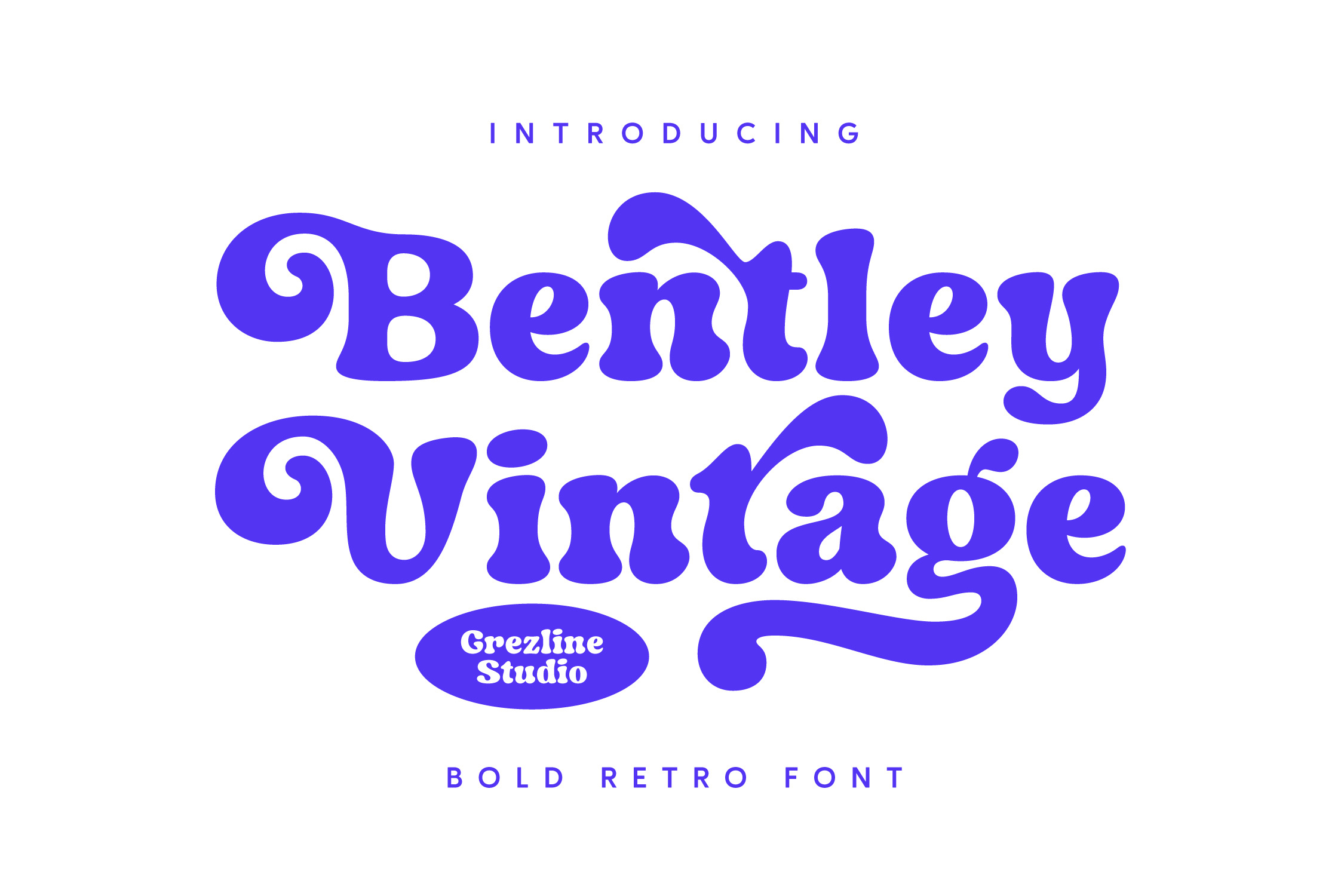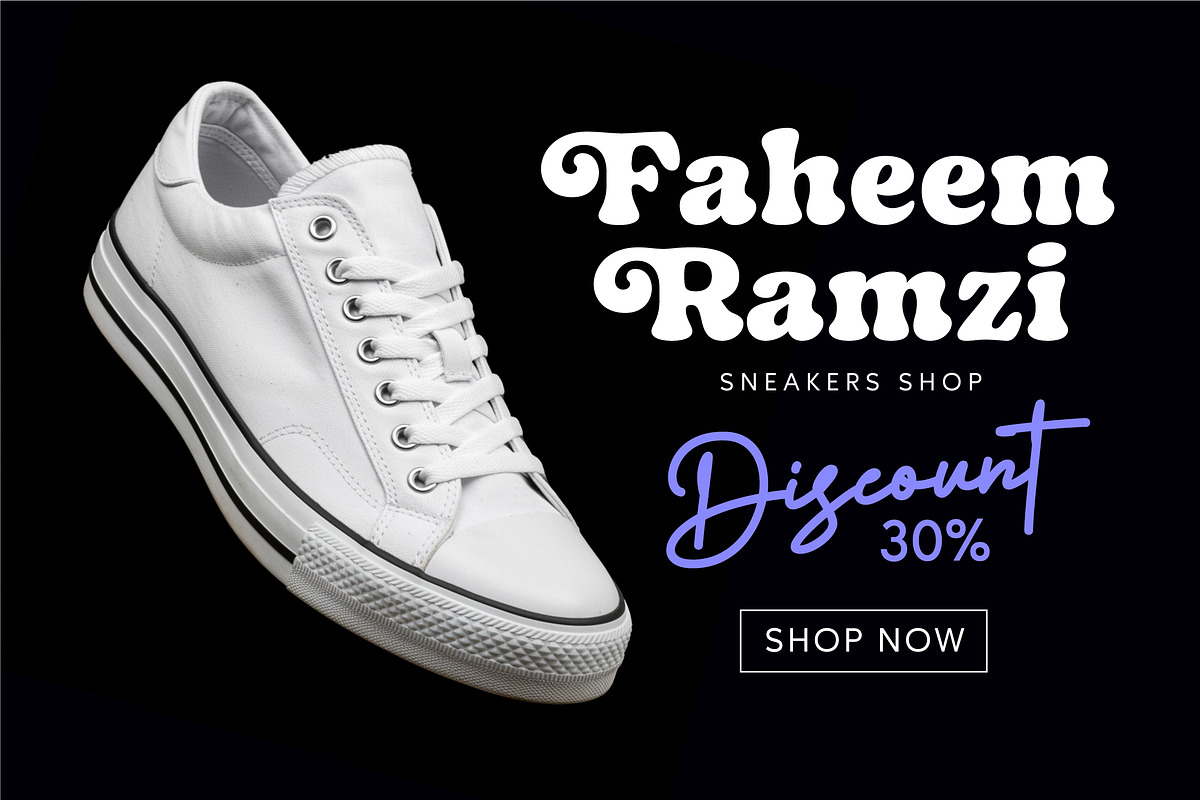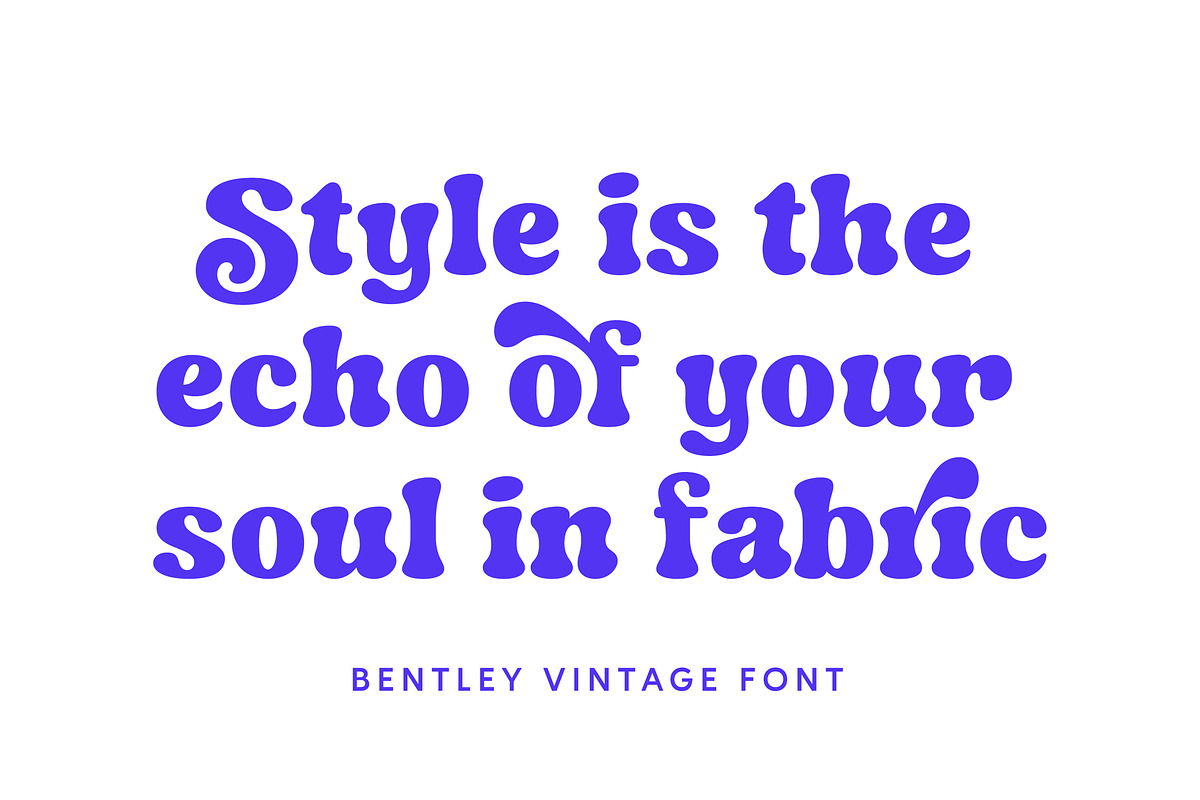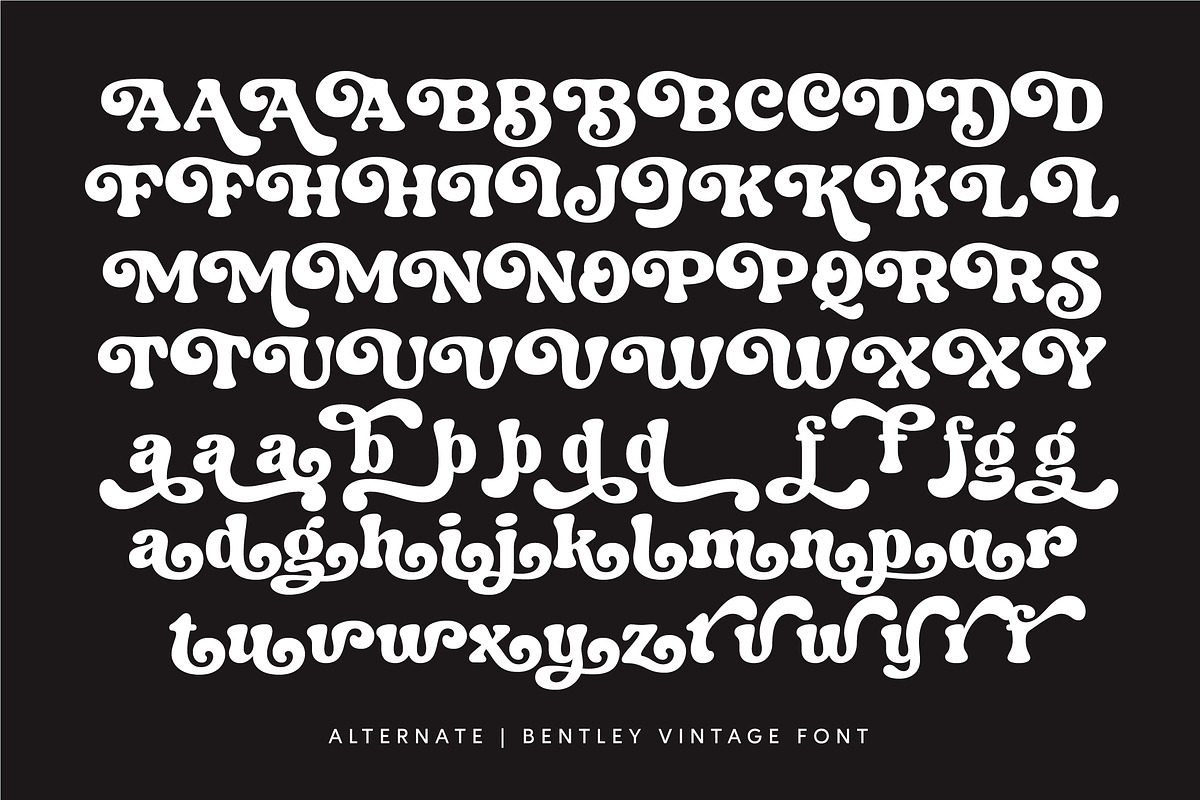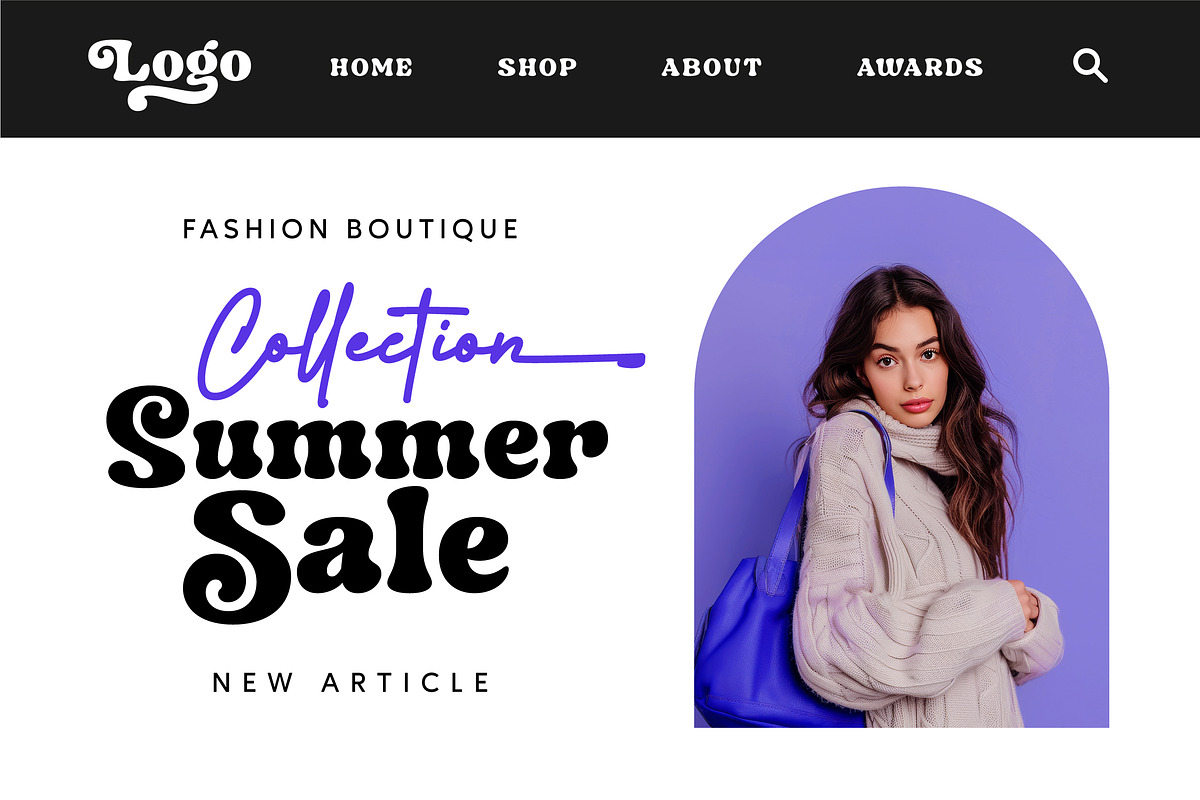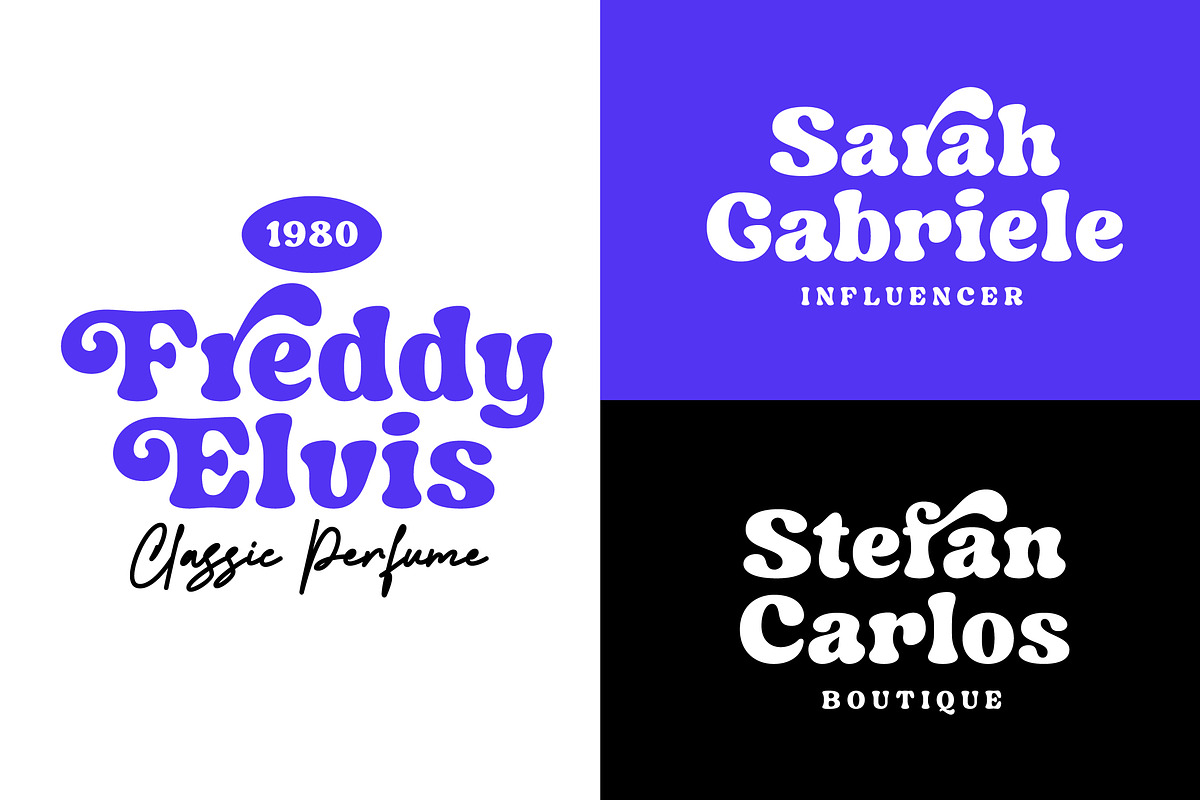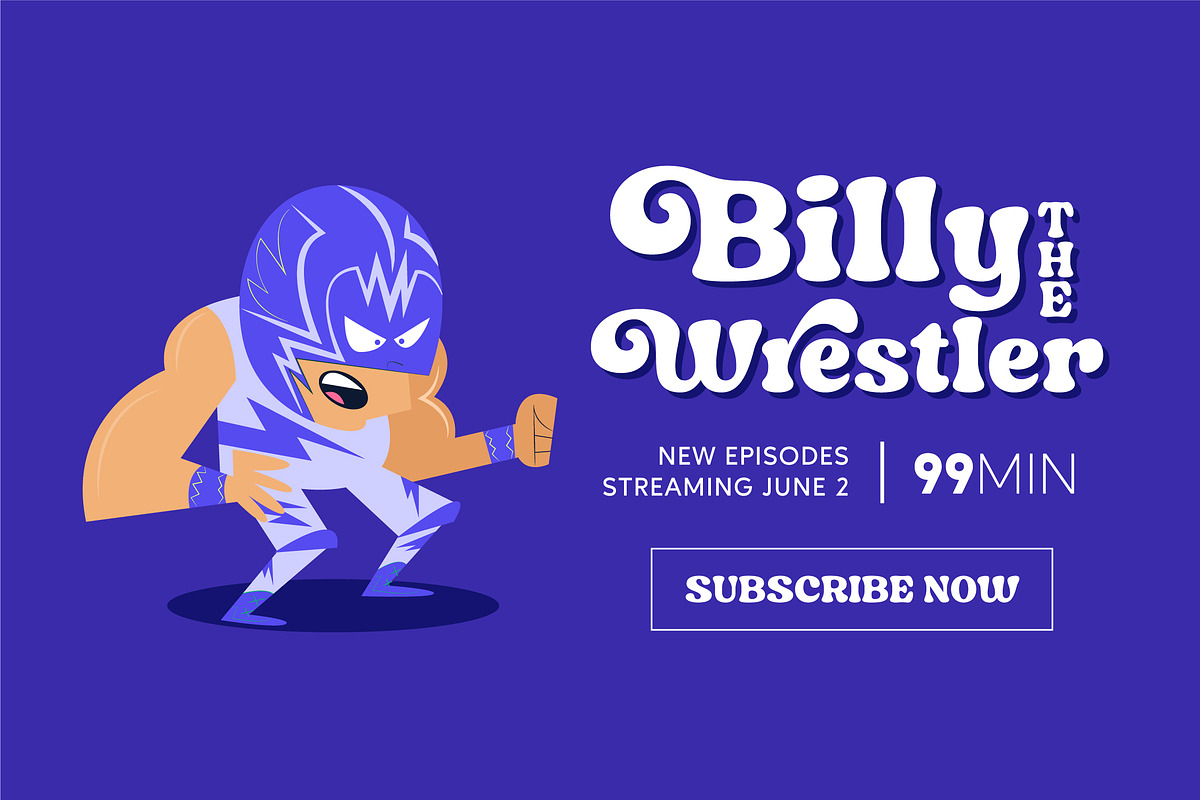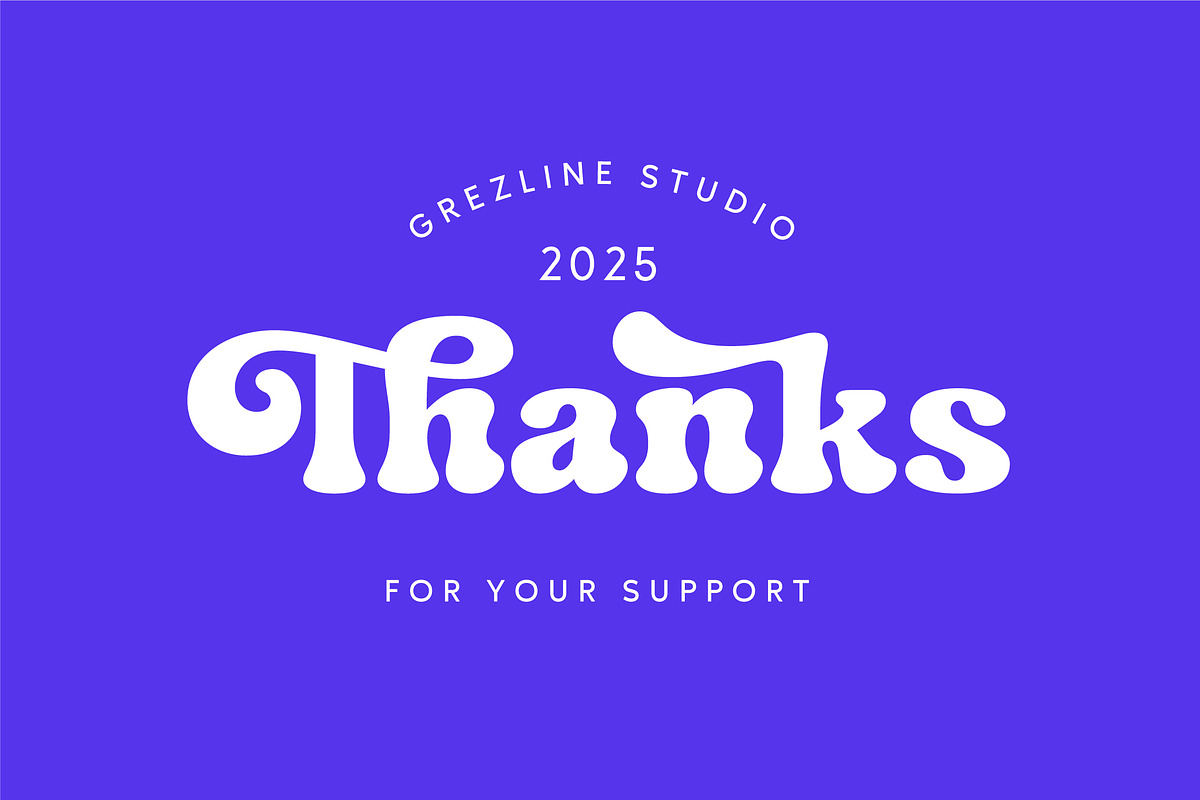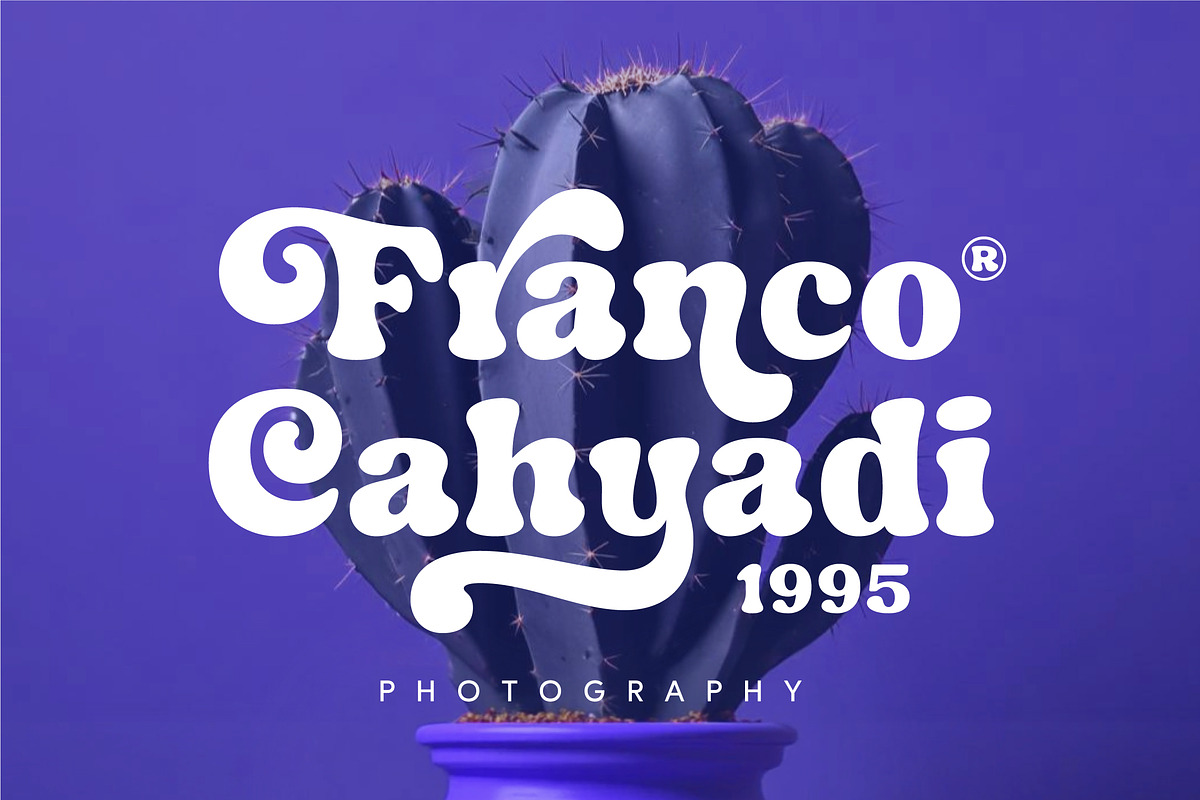
Bentley Vintage – Bold Retro Font
Introducing Bentley Vintage, a meticulously crafted retro font that bridges nostalgia with contemporary sophistication—where vintage charm meets exacting modern standards. Whether you’re crafting a brand identity, designing a retro-themed poster, or adding character to a digital campaign, Bentley Vintage delivers. This isn’t just another retro font; it’s a design asset with the charm of yesteryear and the flexibility today’s creatives demand.
- Alternate and Ligature
- Multilingual Language